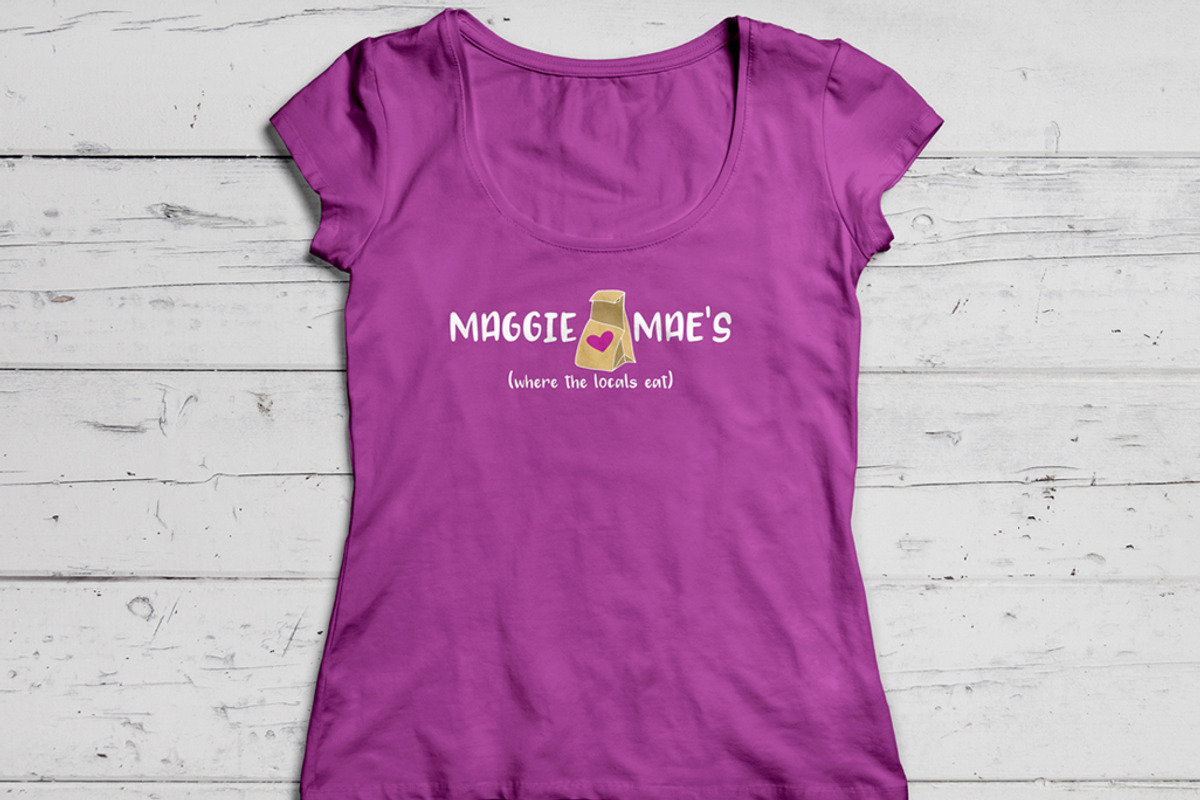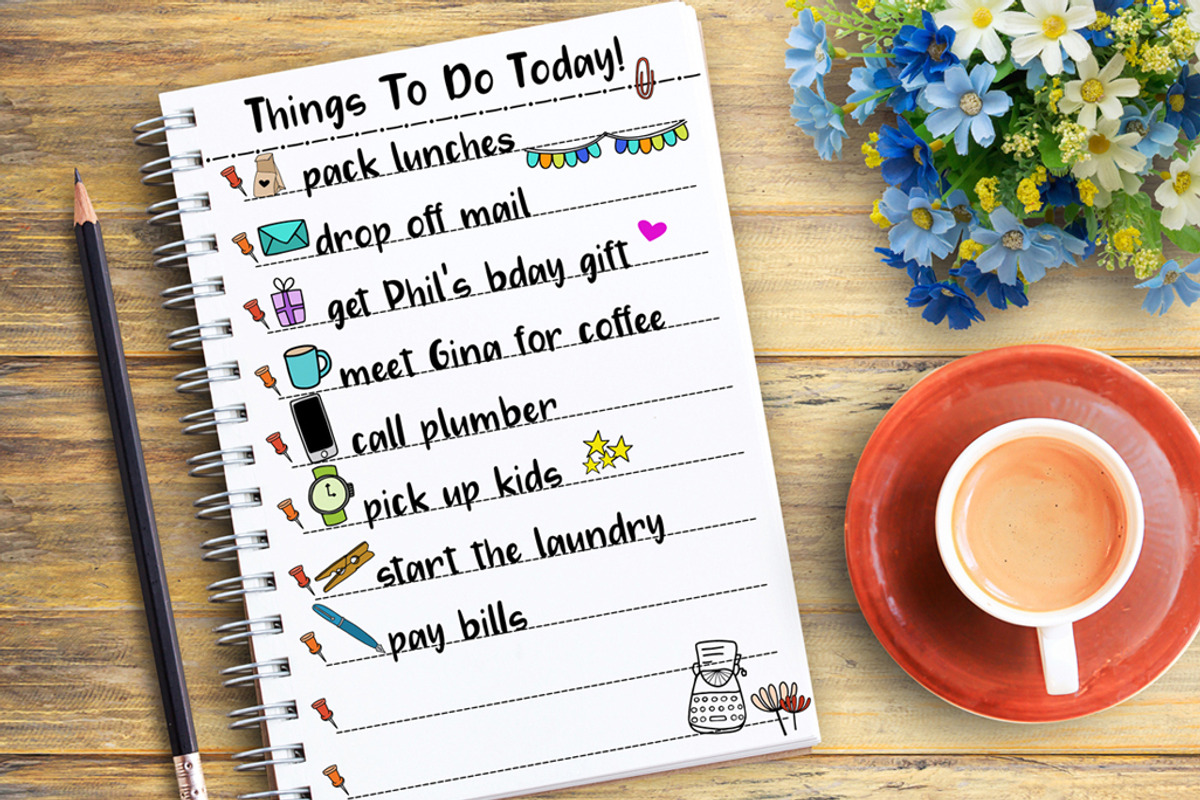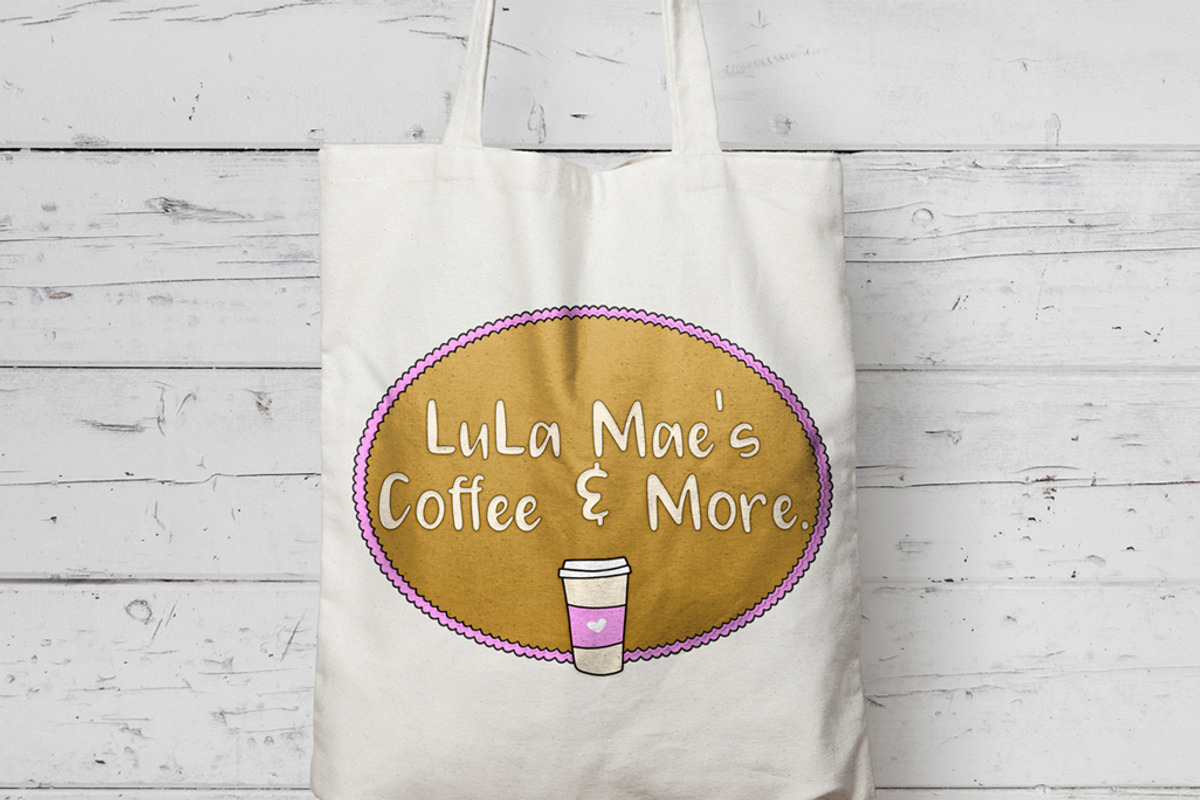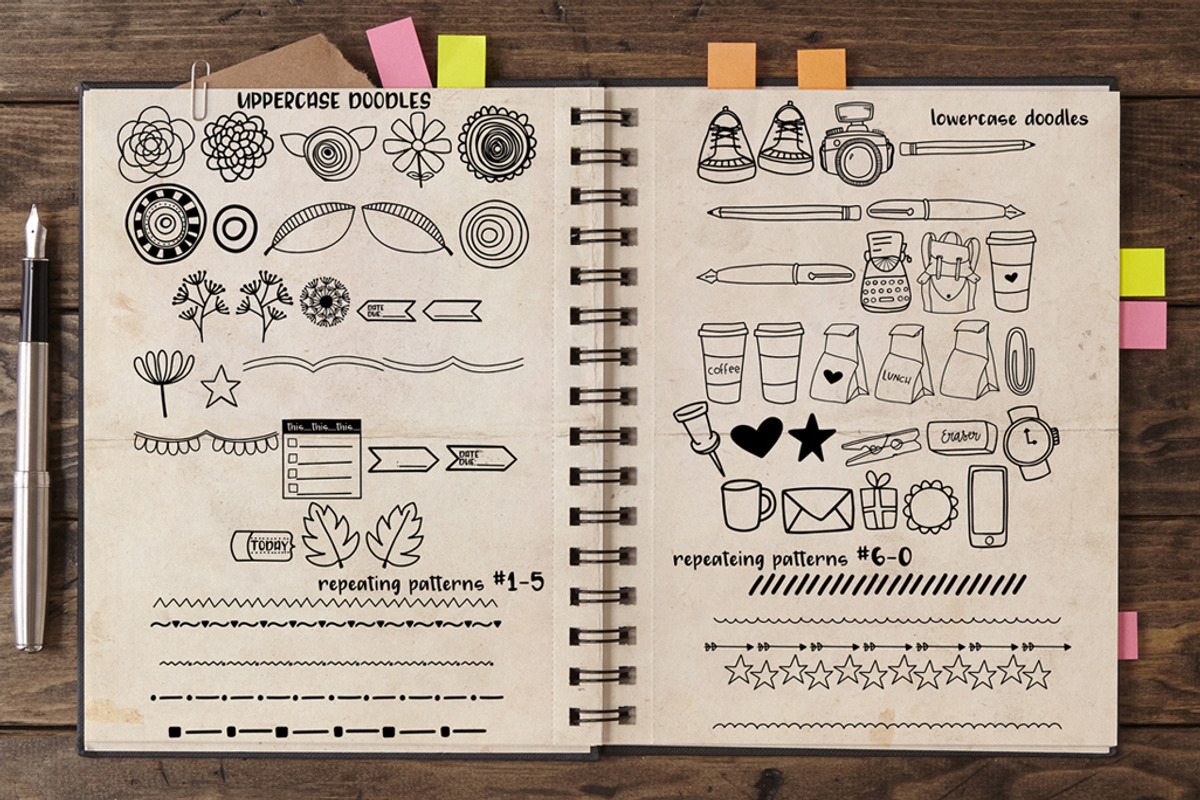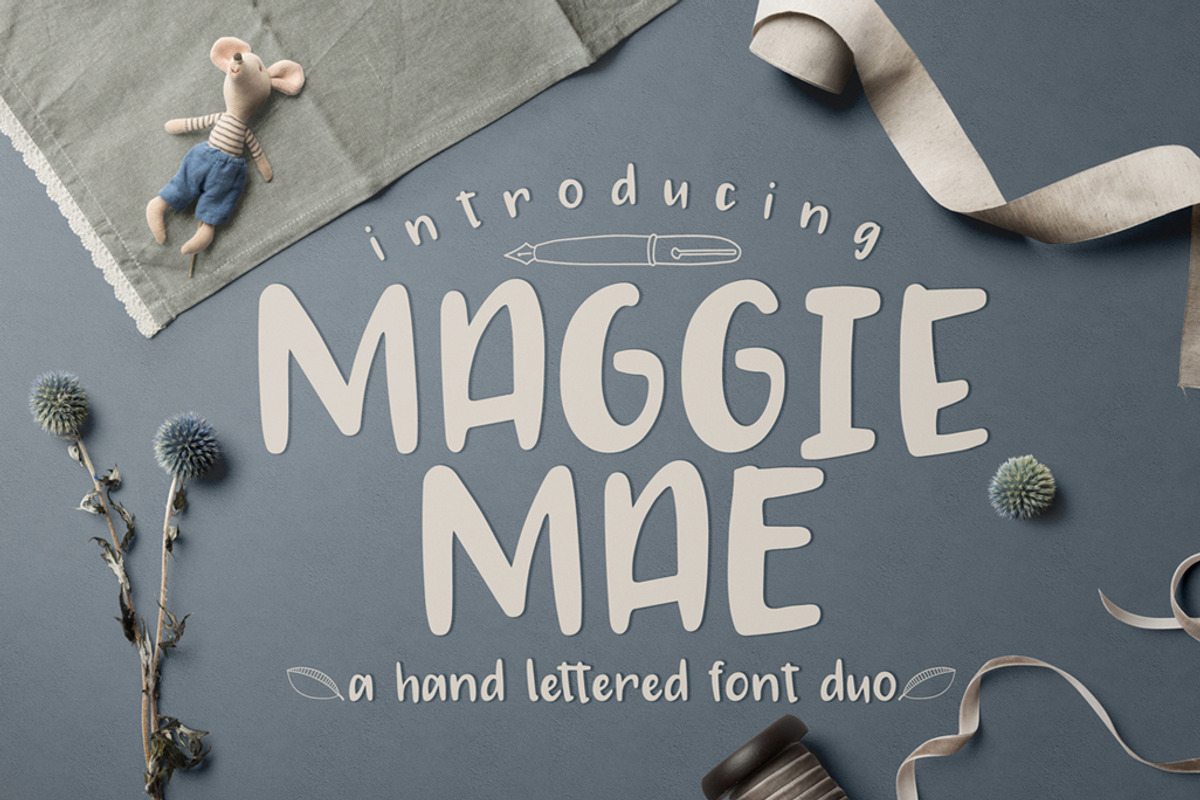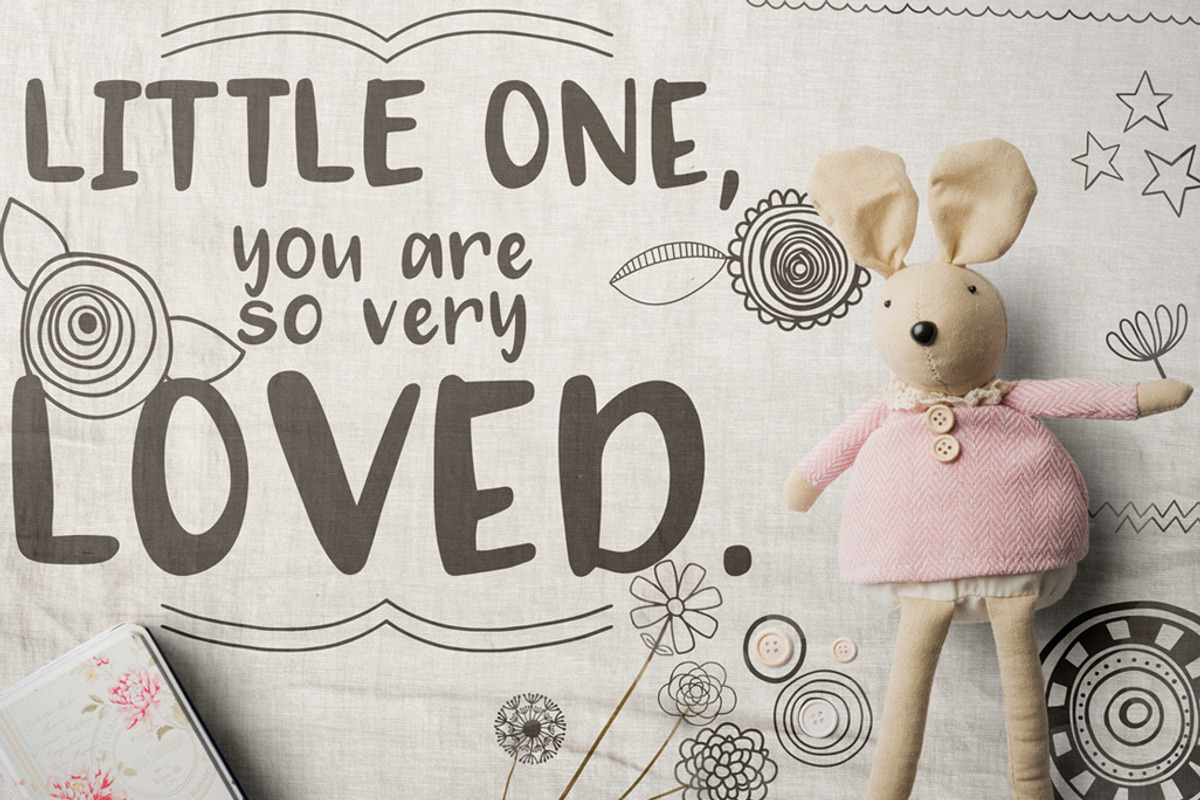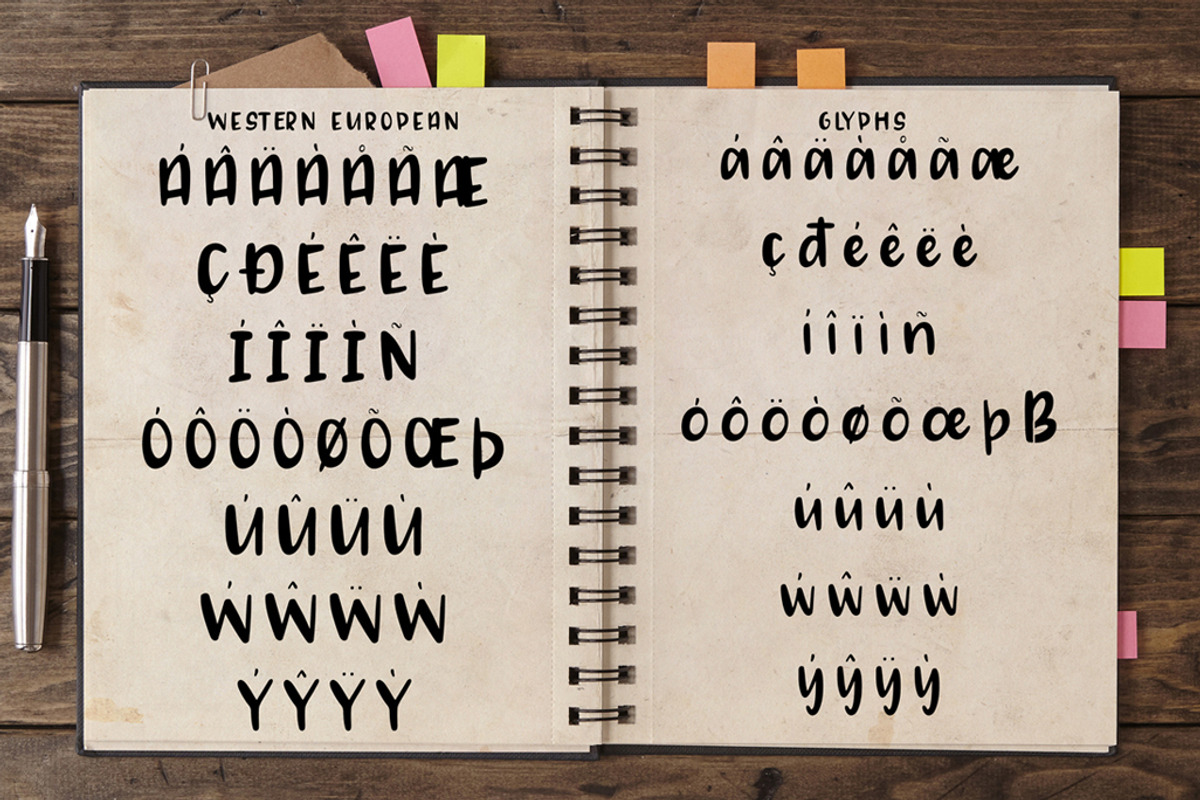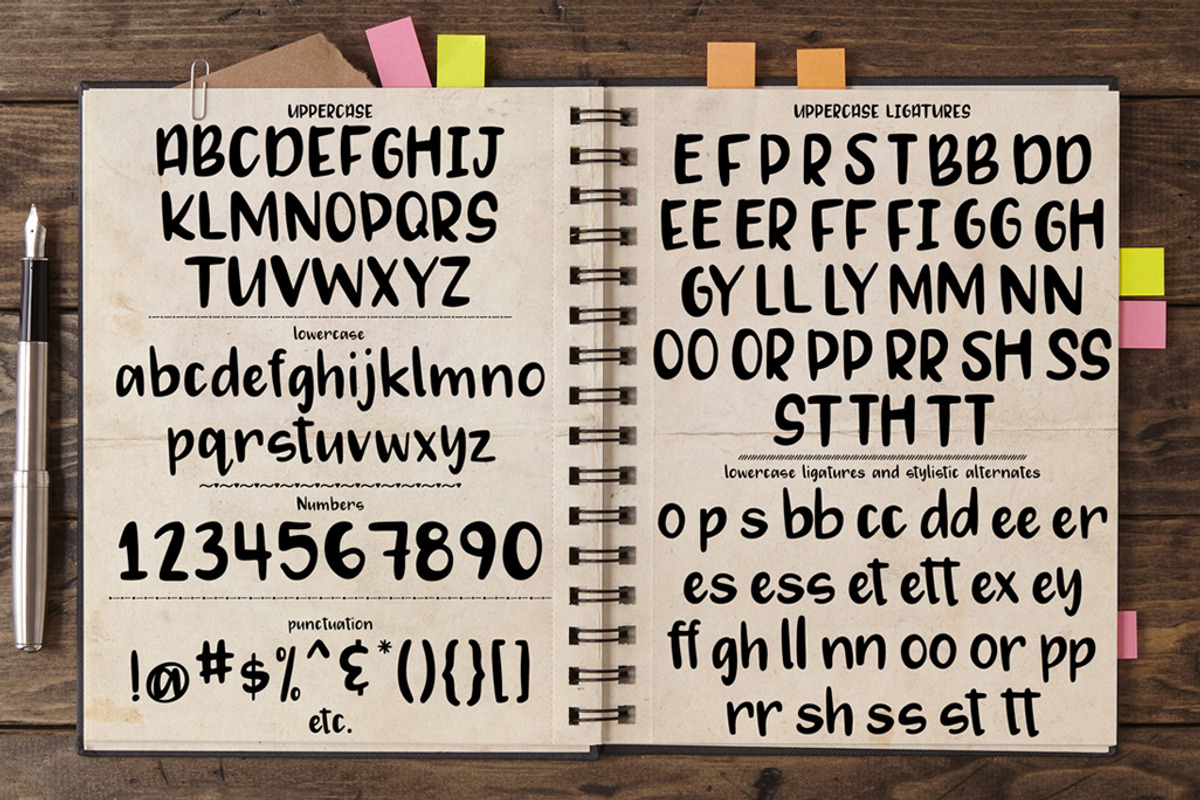
Maggie Mae Font Duo
Give your designs a hand-letterd dose of personality with font duo, Maggie Mae! Perfect for birthday and greeting cards, branding, social media, packaging, magazine layouts, prints and more!
A full Print font with custom ligatures for more unique, hand drawn look. Includes numbers, and punctuation.
A Doodle font with 52 hand drawn doodles (upper and lowercase), and 10 (numbers 0-9) repeating line patterns.
- Maggie Mae includes 2 fonts: Complete Alpha and Doodles, created to pair perfectly together to bring your designs to life.
- What's included with the Maggie Mae: A full Print font with custom ligatures for more unique, hand drawn look.
- Includes numbers, and punctuation.